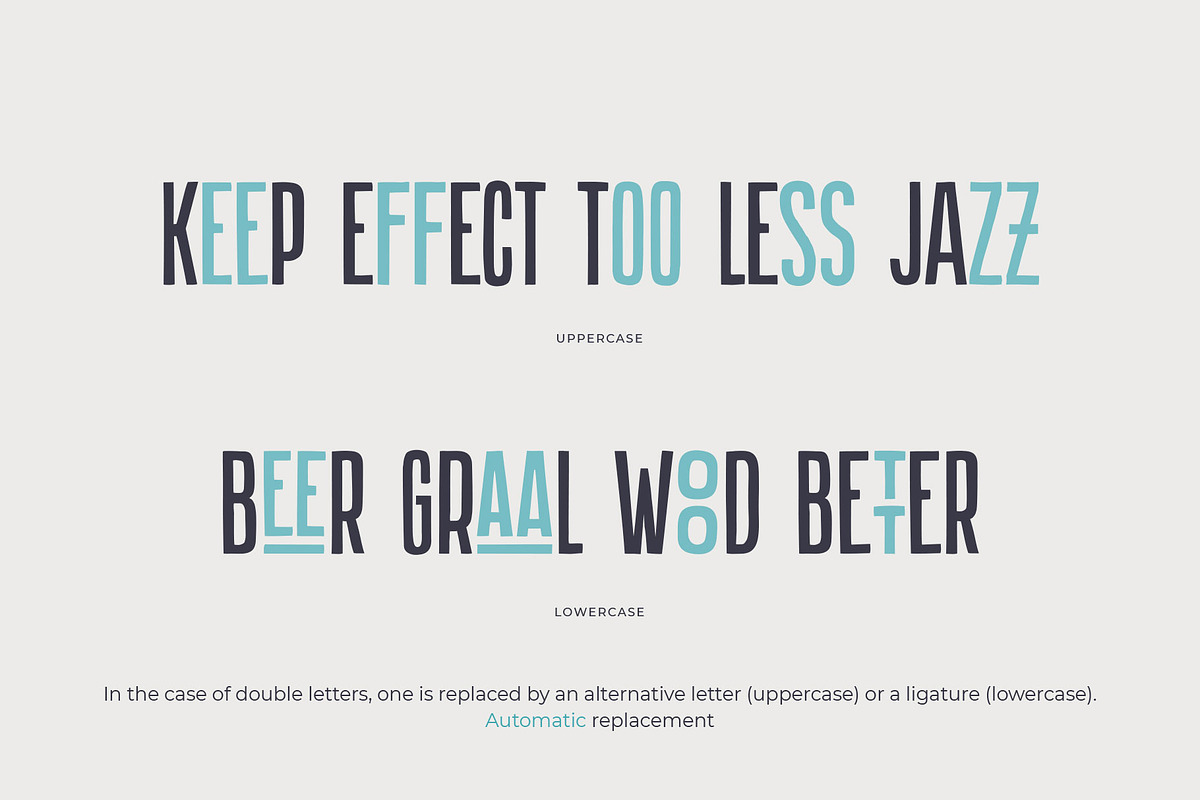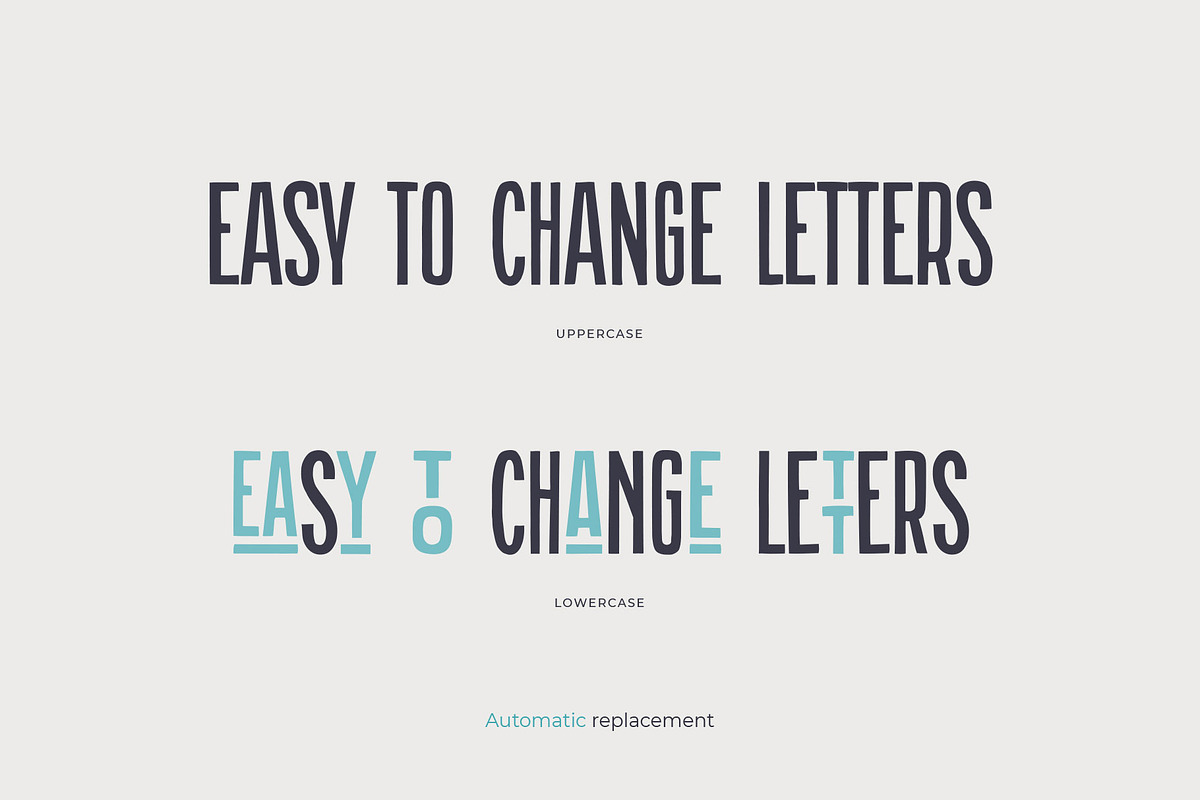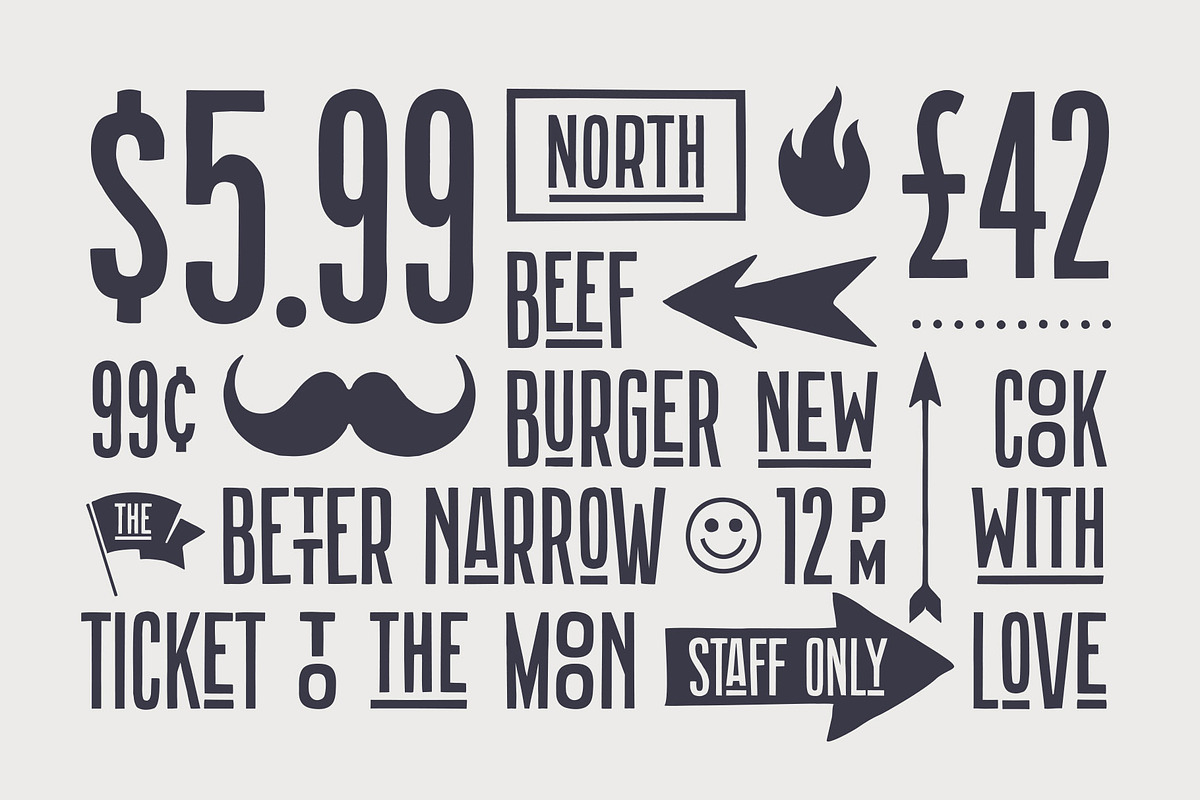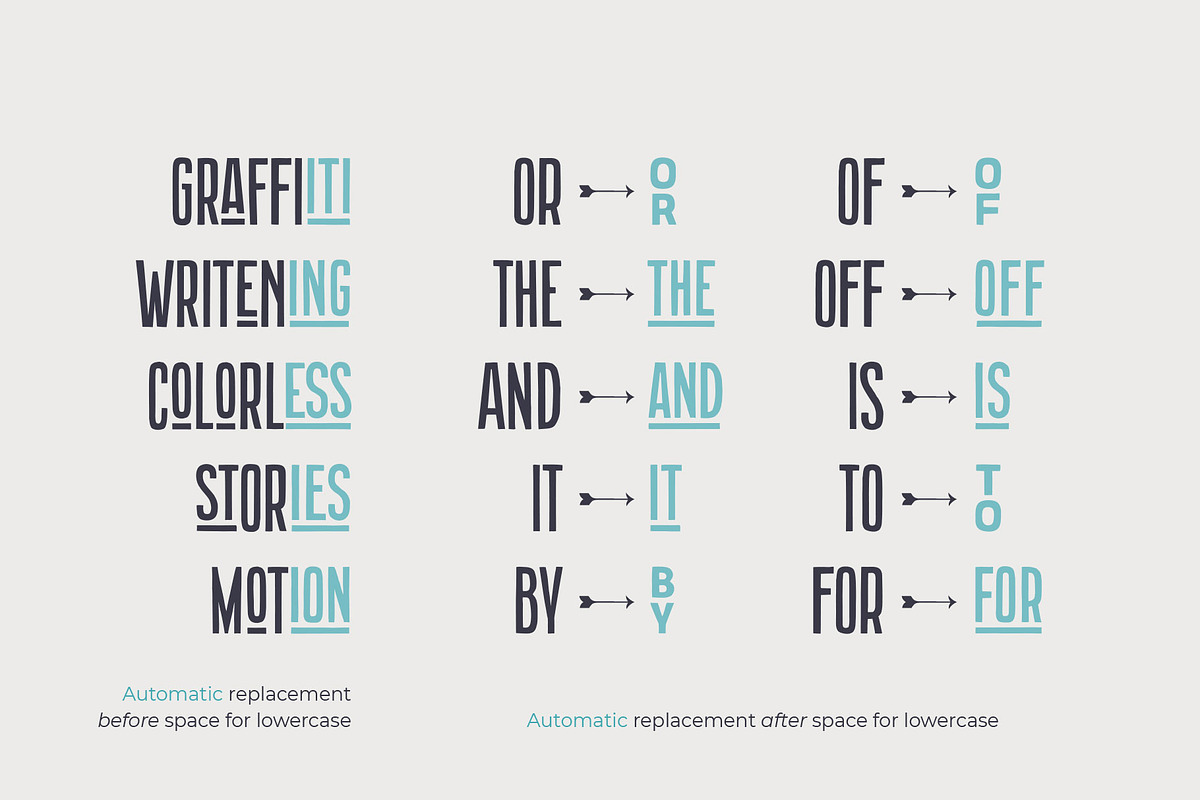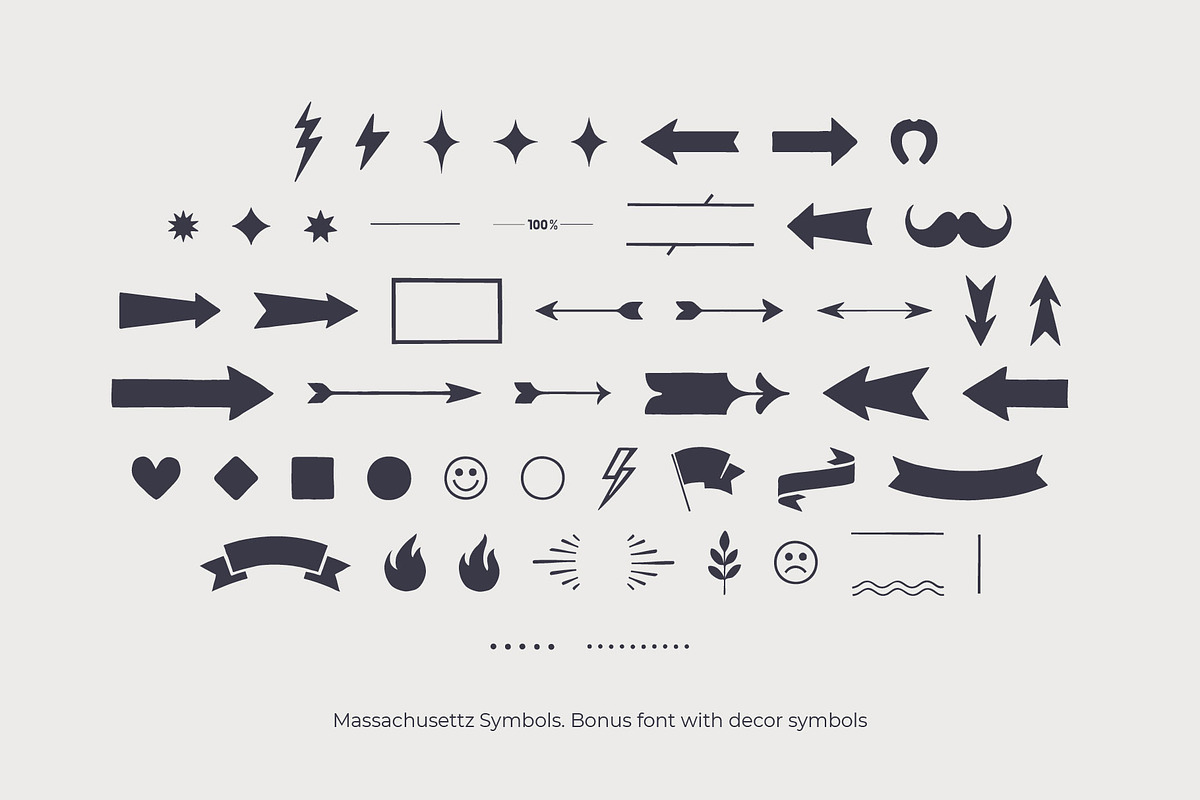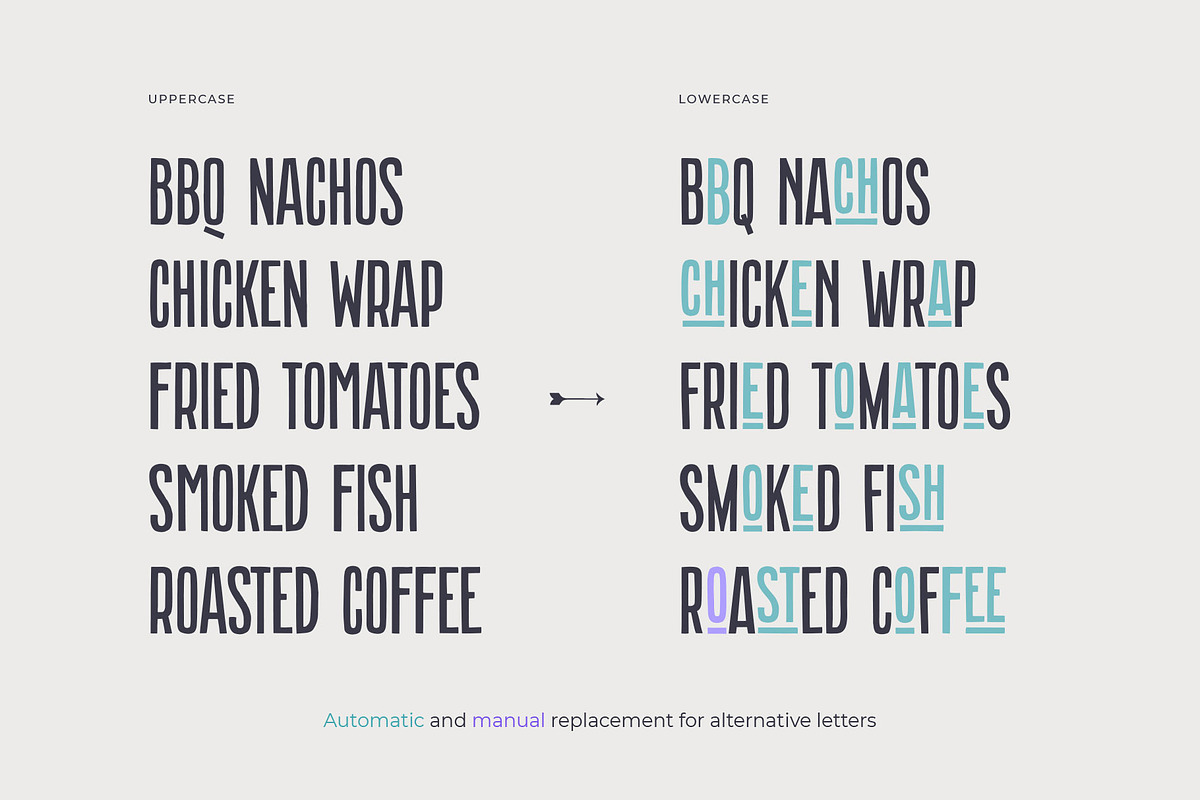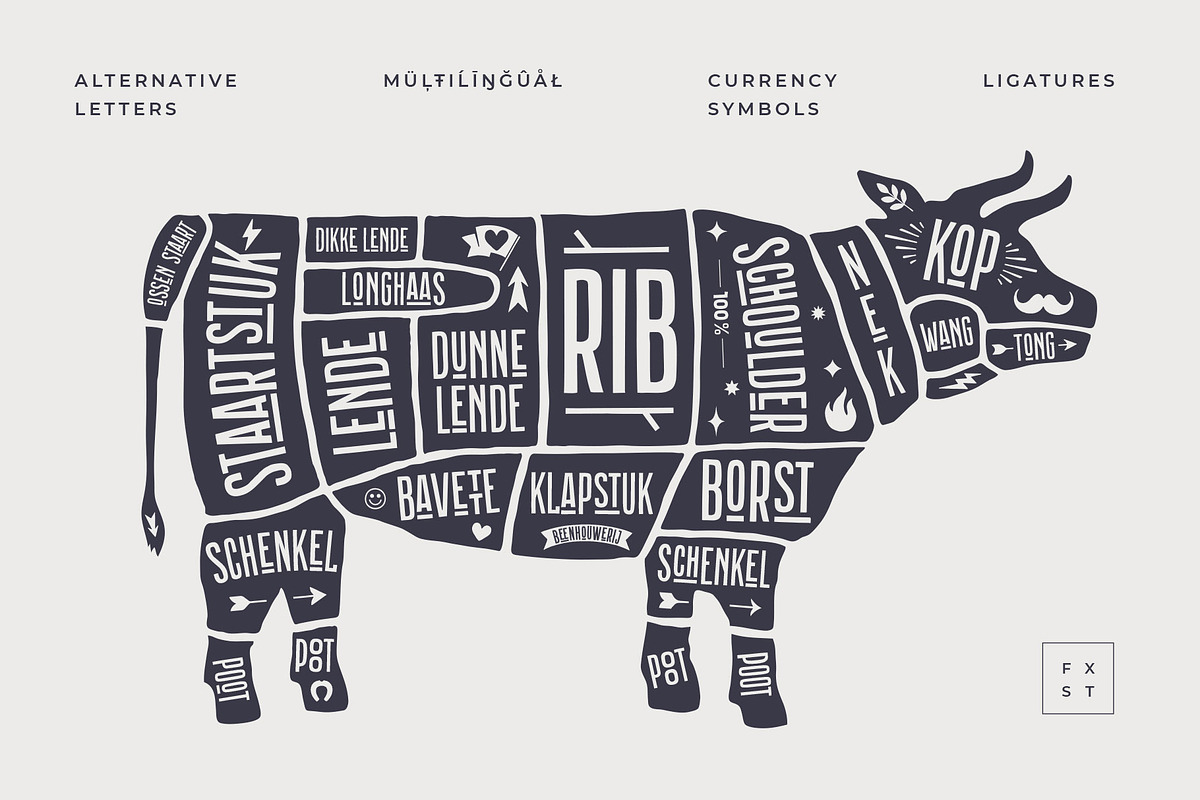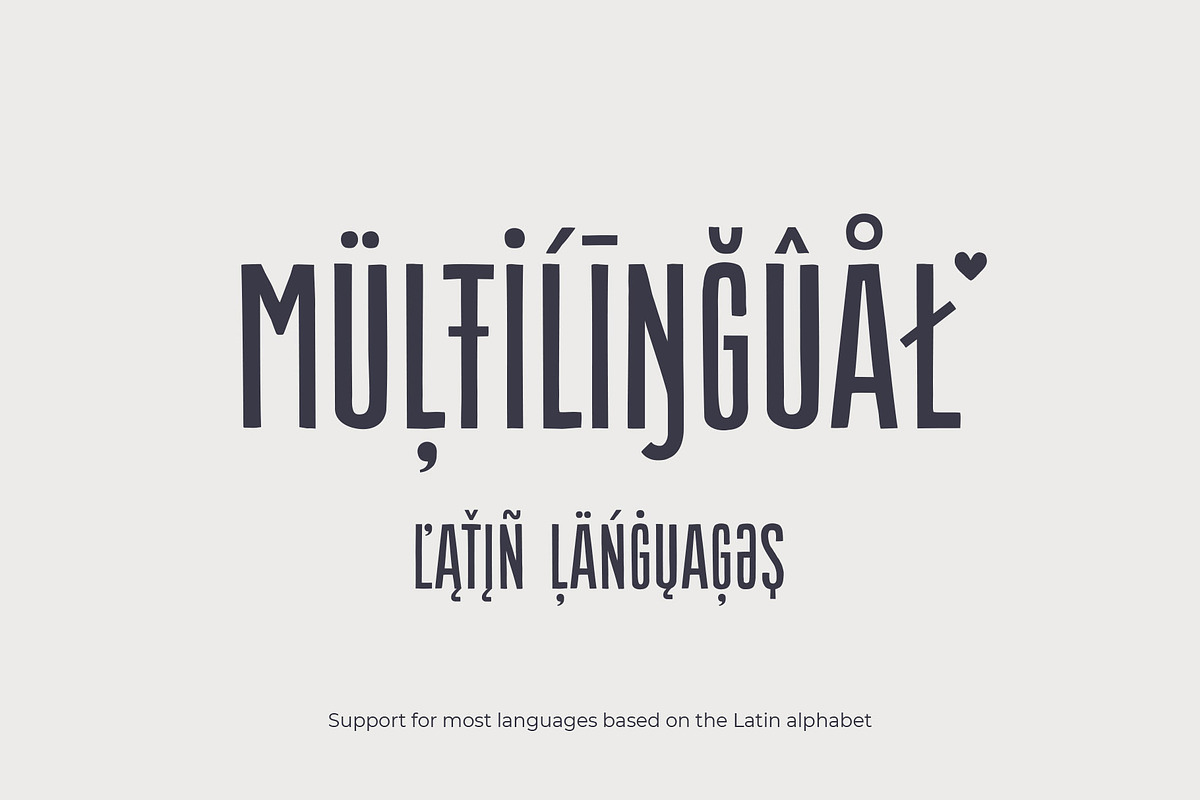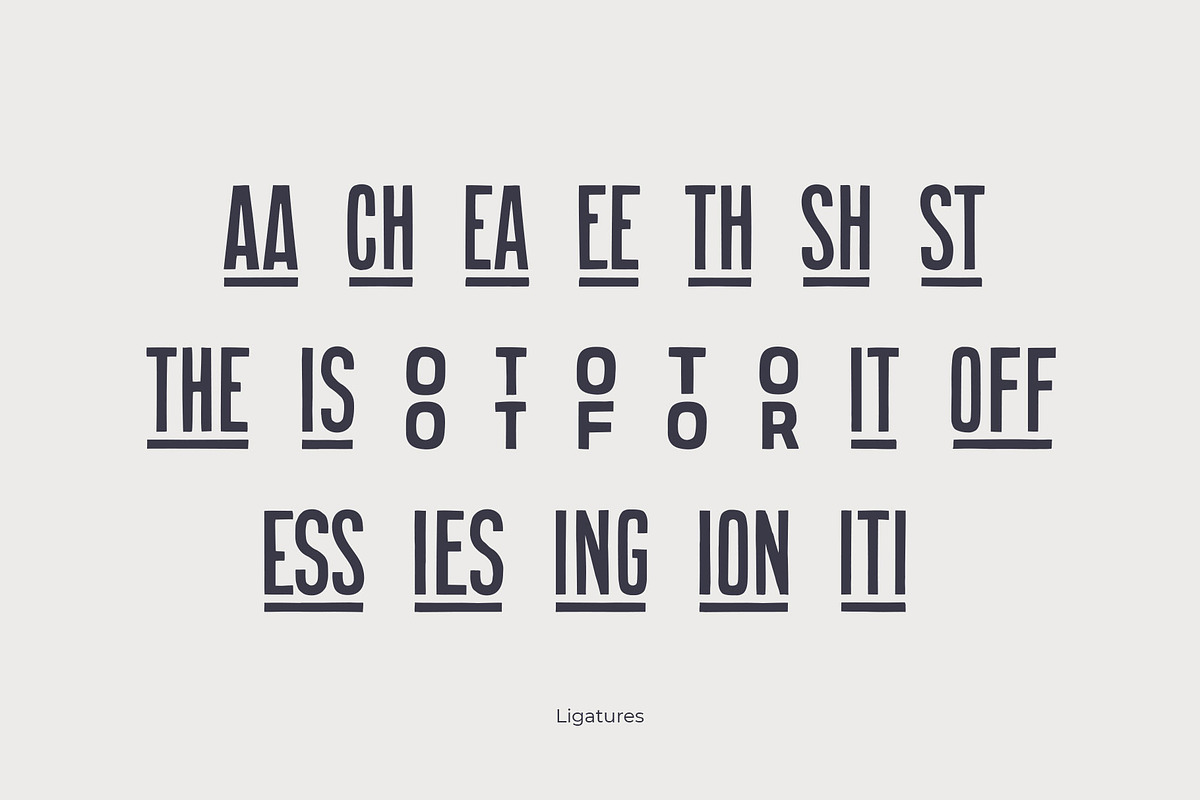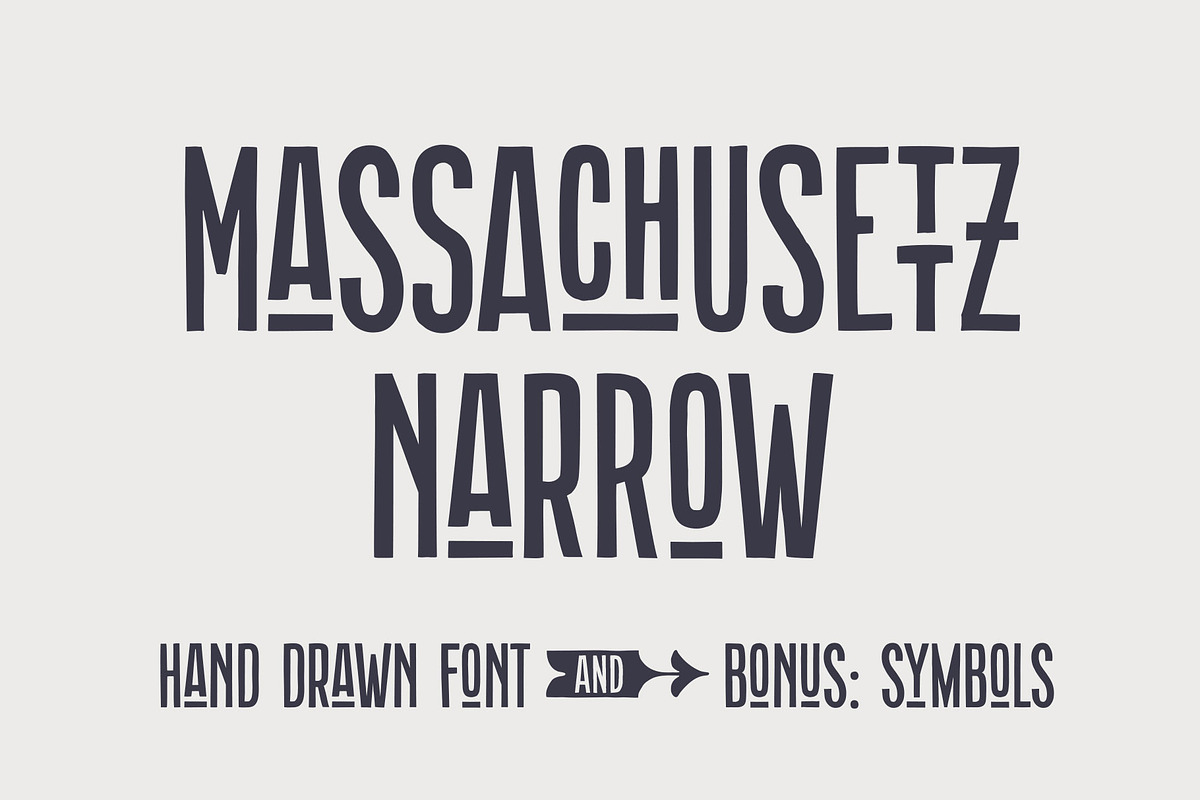
Massachusettz Narrow
MASSACHUSETTZ NARROW
It is a dense hand-drawn sans-serif typeface with uneven edges and a dancing baseline. It creates a vivid impression, feels kind, playful and communicative. The font is full of alternate letters, symbols, graphics. It changes easily, bravely communicates with the customer and transforms slightly depending on the space and purpose.
ALTERNATIVES
Change letters to alternates for the uniqueness of spellings. For convenience, alternative characters are typed when typing in small letters (lowercase) and normal letters – when typing in capital letters (uppercase). To add to this, you can always switch letters to additional alternative ones and insert symbols. Moreover, to make it look interesting, the font is full of auto-replacements for prepositions and endings.
LIGATURES
Most of the ligatures work automatically before or after a space. But you can always manually change letters to ligatures and alternative letters through the glyph panel Glyphs in Adobe applications.
OPENTYPE